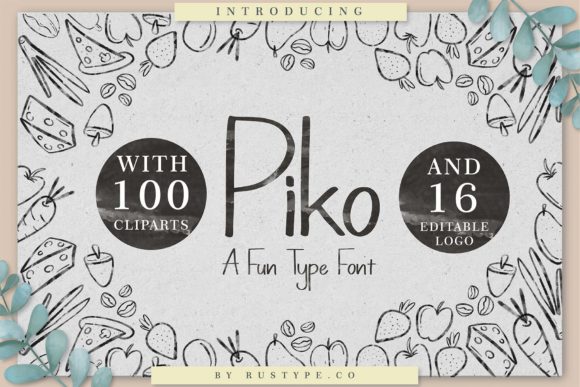
Unleash your creativity with Piko Font, a display font family that exudes charm and playfulness. Dive into a world of captivating designs with this highly versatile font, crafted by the talented team at Rustype.
Piko Font is more than just a collection of letters; it's an artistic masterpiece that will transform your designs into captivating expressions of your unique style. Its distinct and adorable character brings a touch of whimsy to any project, leaving a lasting impression on your audience.
Step into a world of endless possibilities with Piko Font. Its wide range of applications makes it the perfect choice for a multitude of creative projects. Whether you're crafting eye-catching logos, designing stunning websites, creating engaging social media graphics, or adding a touch of fun to your presentations, Piko Font will elevate your designs to new heights of creativity.
Experience the beauty of Piko Font in all its glory. Its meticulously crafted characters dance across the page, captivating your audience with their unique charm. Each letter is a work of art, carefully designed to evoke emotions and leave a lasting impression.
Don't settle for ordinary fonts that blend into the background. Embrace the extraordinary with Piko Font. Its bold and distinctive style will make your designs stand out from the crowd, leaving a lasting impression on all who encounter them.
Unlock the potential of Piko Font today and embark on a creative journey like never before. Let your imagination soar as you create captivating designs that resonate with your audience. Piko Font is the key to unlocking your creative potential and leaving an indelible mark on the world of design.